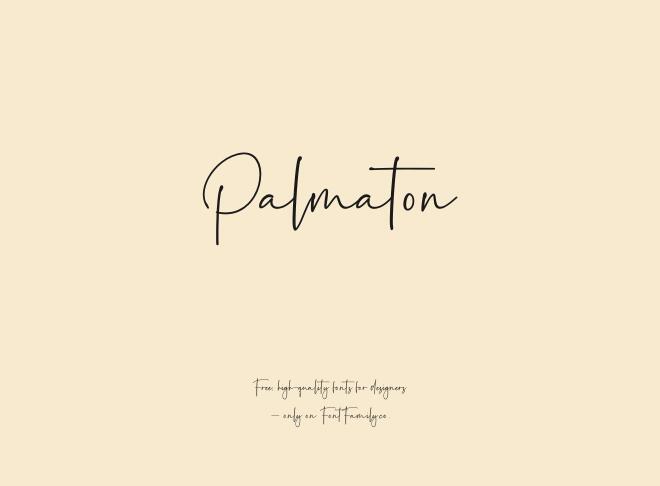
Palmaton Font
Palmaton Font is a unique, playful, and modern handwritten font with a rustic touch. Designed by Creative Foundry in 2021, it is perfect for adding a personal and quirky touch to your design projects. The font stands out for its distinctive, decorative characters that bring a sense of fun and creativity. Its modern, yet rustic feel makes it a great choice for branding, logo design, product packaging, quotes, and even social media graphics. Compared to other fonts, Palmaton Font offers a distinctive style that is both eye-catching and memorable. It's an excellent choice for designers looking to add a touch of individuality and playfulness to their work. Despite its decorative nature, the font remains clear and legible, making it versatile for a wide range of uses. Whether you're a professional designer or a hobbyist, Palmaton Font is a valuable addition to your font library.